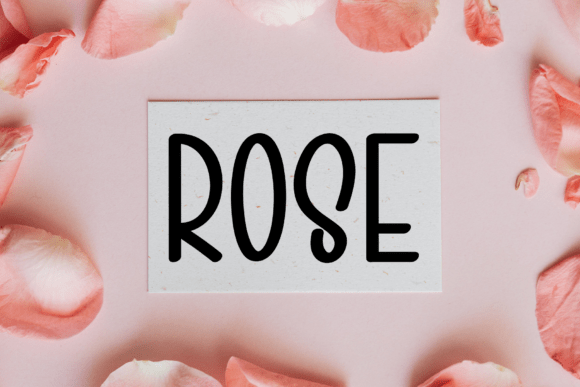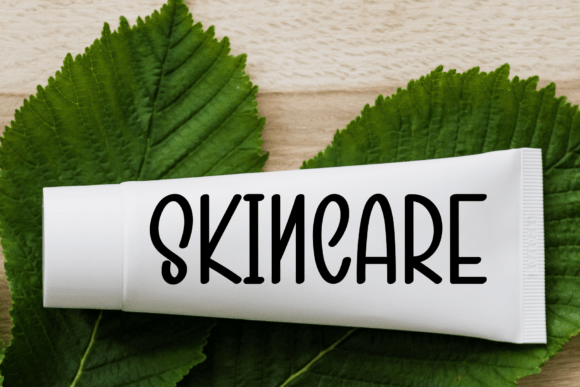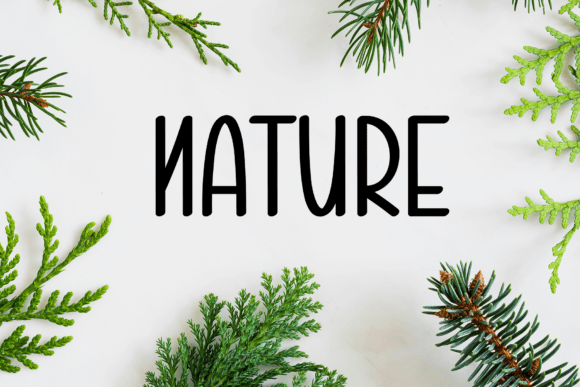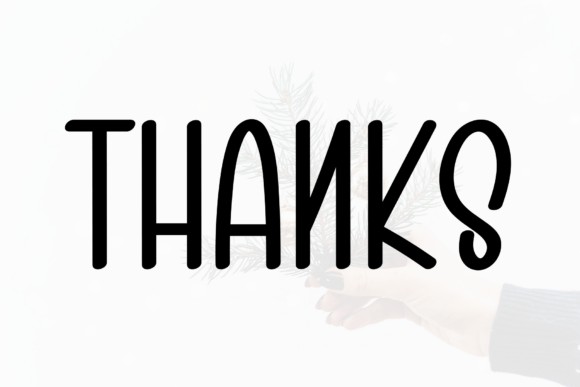
Introducing Autumn Keeps Font: Add a Cozy Accent to Your Designs
As the seasons change and autumn leaves start to fall, designers and crafters are on the lookout for fonts that evoke a sense of warmth and coziness. If you’re searching for a font that captures the essence of the season, look no further than Autumn Keeps Font. This sweet and beautiful handwritten font is perfect for adding a touch of autumnal charm to any design project.
What Makes Autumn Keeps Font Special?
Autumn Keeps Font is a unique and elegant handwritten font that features characters that dance along the baseline. This distinctive characteristic gives the font a playful and whimsical feel, making it perfect for designs that require a personal touch. The font’s flowing lines and curves create a sense of movement and energy, adding a dynamic element to any design.
Key Features of Autumn Keeps Font
- Sweet and Beautiful Handwritten Style: Autumn Keeps Font boasts a sweet and beautiful handwritten style that is perfect for a variety of design projects, from invitations and greeting cards to blog posts and social media graphics.
- Characters that Dance Along the Baseline: The font’s unique characteristic of characters dancing along the baseline adds a playful and whimsical touch to any design.
- Coziness and Warmth: The font’s autumnal feel evokes a sense of coziness and warmth, making it perfect for designs that require a seasonal touch.
- Elegant and Playful: Autumn Keeps Font strikes the perfect balance between elegance and playfulness, making it suitable for a wide range of design projects.
Autumn Keeps Font is a versatile font that is perfect for designers and crafters who want to add a personal touch to their work. Whether you’re creating:
- Invitations and Greeting Cards: Add a touch of autumnal charm to your invitations and greeting cards with Autumn Keeps Font.
- Blog Posts and Social Media Graphics: Use the font to create eye-catching blog posts and social media graphics that showcase your brand’s personality.
- Branding and Packaging: Autumn Keeps Font is perfect for creating brand identities and packaging that require a unique and elegant touch.
- Crafts and DIY Projects: Add a personal touch to your crafts and DIY projects, such as handmade cards, gift tags, and scrapbooking pages.
Why Choose Autumn Keeps Font?
With so many fonts available, why choose Autumn Keeps Font? Here are just a few reasons:
- Unique and Exclusive: Autumn Keeps Font is a unique and exclusive font that will set your designs apart from the rest.
- Easy to Read and Use: The font is easy to read and use, making it perfect for designs that require a clear and legible font.
- Scalable: Autumn Keeps Font is scalable, making it suitable for a wide range of design projects, from small icons to large banners.
Autumn Keeps Font is a beautiful and unique handwritten font that is perfect for designers and crafters who want to add a touch of autumnal charm to their work. With its sweet and elegant style, characters that dance along the baseline, and cozy feel, this font is sure to become a favorite in your design arsenal. So why wait? Get your hands on Autumn Keeps Font today and start creating stunning designs that showcase your creativity and style!